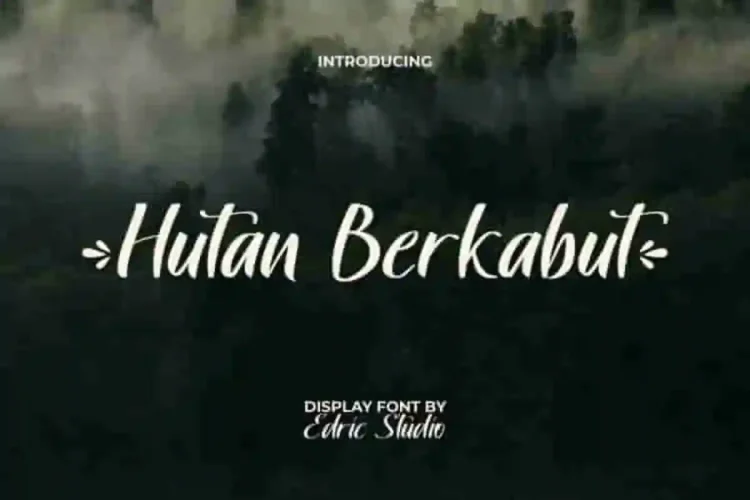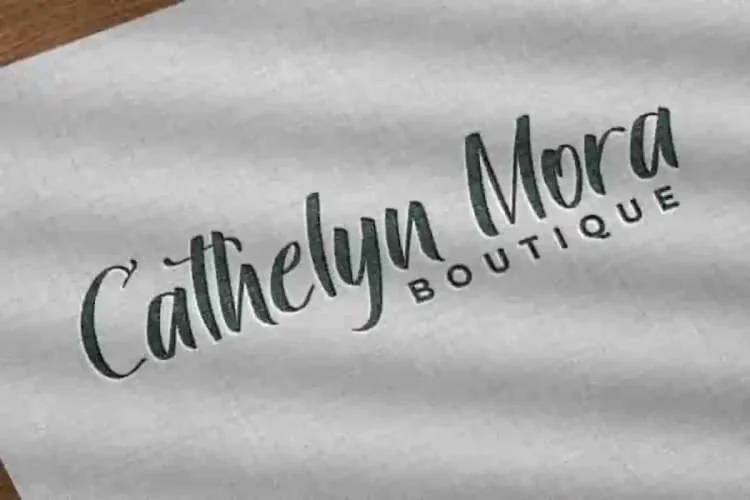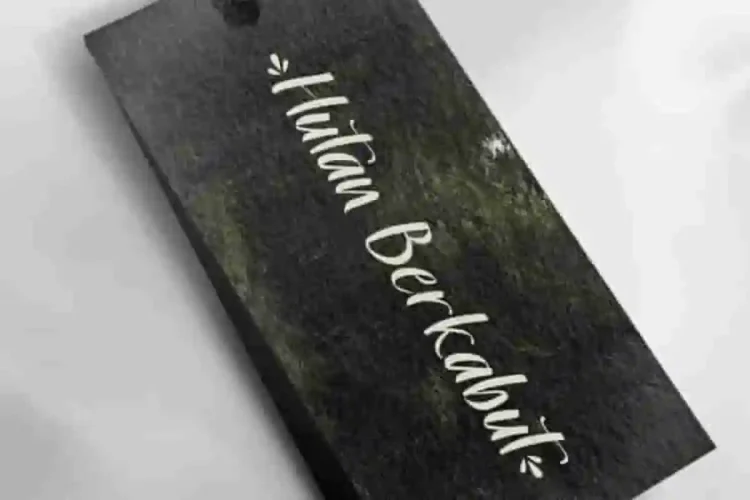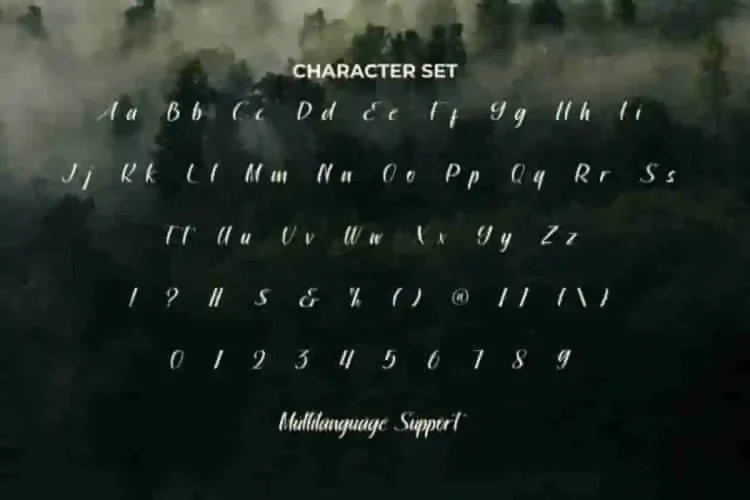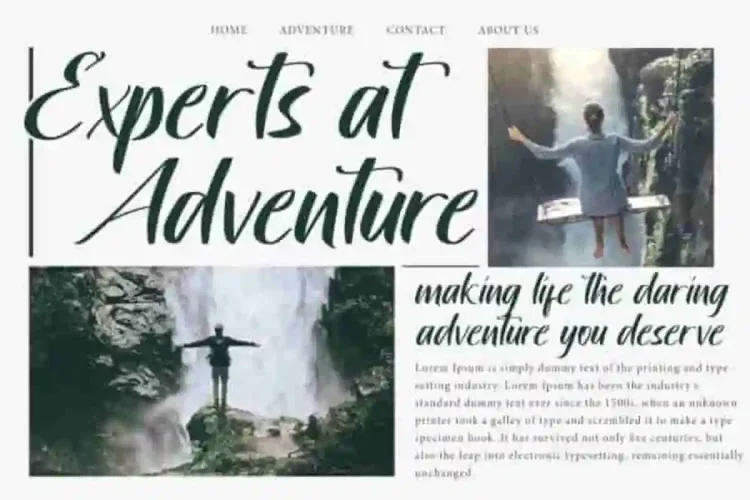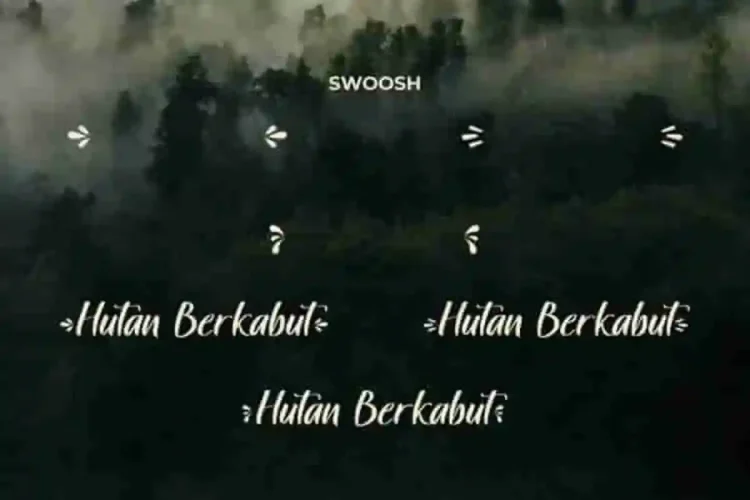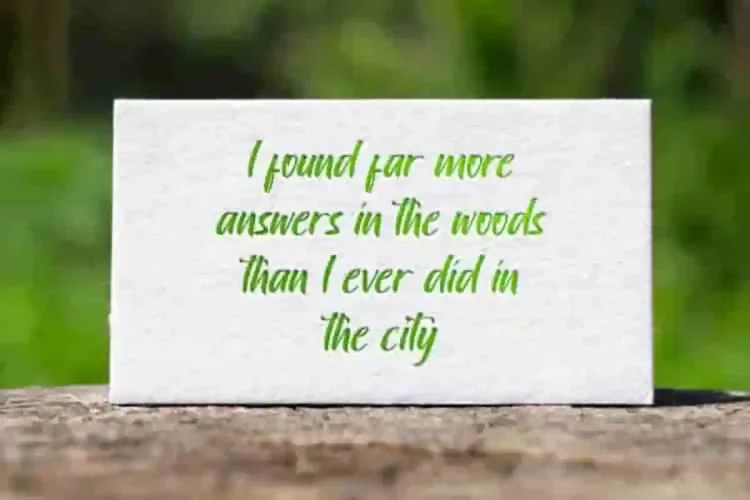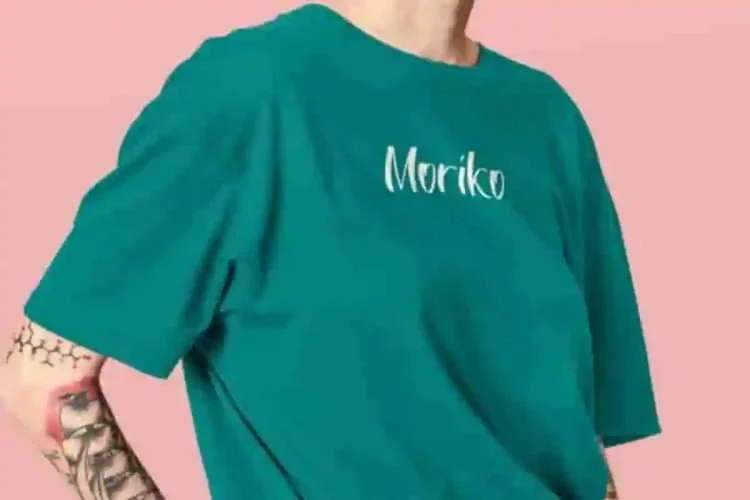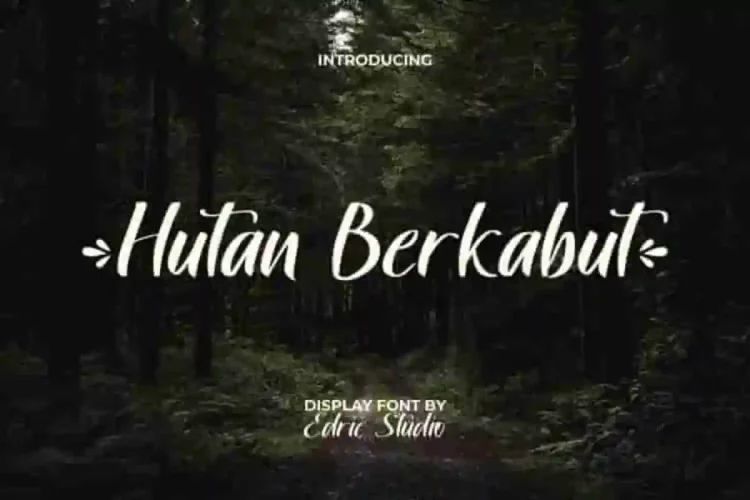
Hutan Berkabut Brush Font a handcrafted brush script font created to flow naturally and beautifully. Good for blogs, embossed design, label tag, logos, mockup, quotes, screen printed, stationery, t-shirt, template, website, and more.
Hutan Berkabut Brush Calligraphy Font comes with a full set of Uppercase and Lowercase letters, Number, Punctuation, Symbol, and Swoosh. This font looks original and quite modern in every perfect character. This will provide dynamic and versatile immediacy. Good for boutique, graphic design, photography, printing, publishing, travel agency, and more.
Hutan Berkabut Font a playful typeface with unique decoration in each character. Combine different characters for a bespoke, handcrafted feel. It’s tested to work well in the Adobe Apps (Illustrator, Adobe InDesign, Adobe Photoshop) even work on Microsoft Word. All of these characters are available through the glyph panel, moreover each letter has its own unicode (PUA) so you can access all the characters easily.